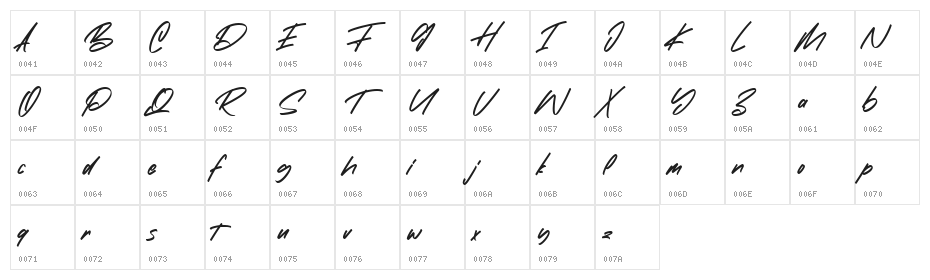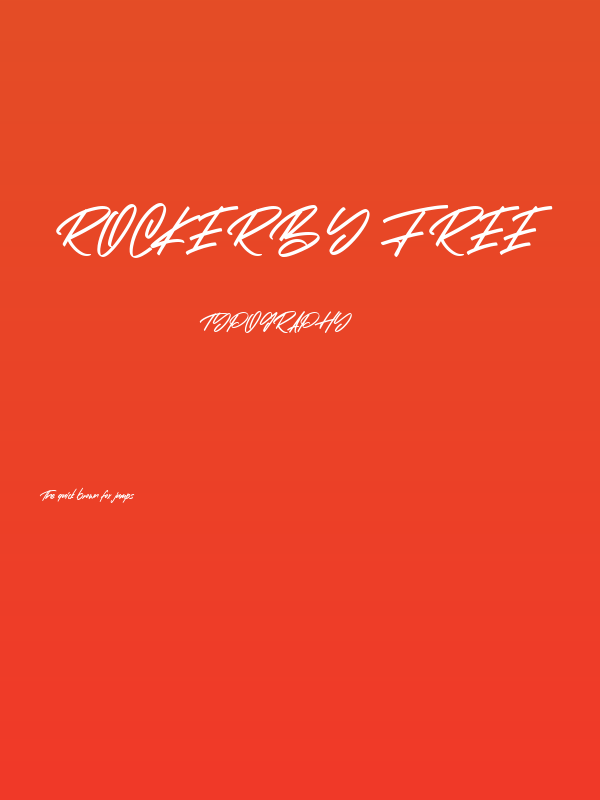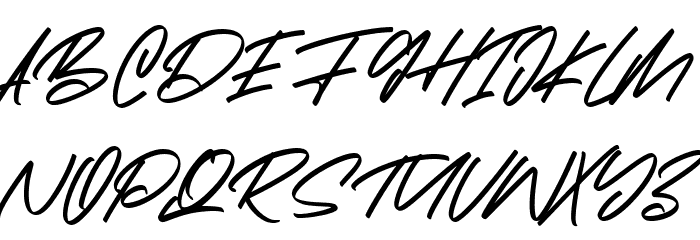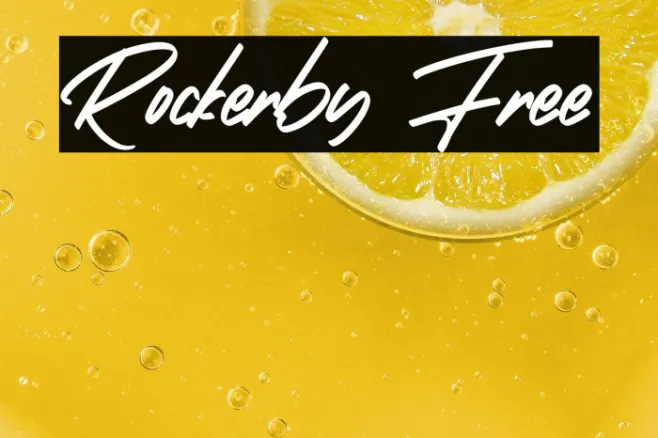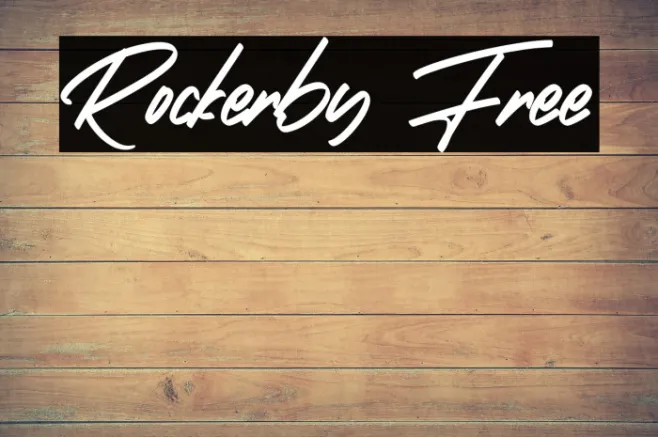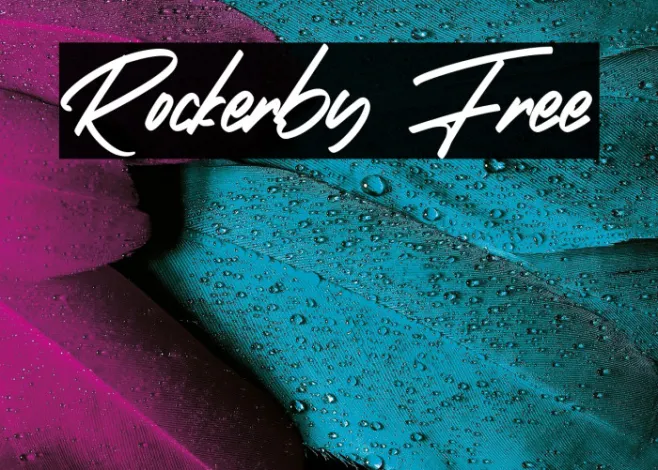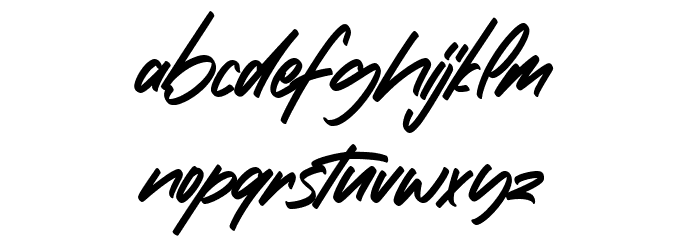
Rockerby Free Font
Rockerby Free Description
This font exudes a dynamic and energetic style, characterized by its bold, flowing script that mimics the fluidity of handwriting. The letters are interconnected, creating a sense of movement and continuity. The uppercase and lowercase letters maintain a consistent style, with elongated strokes and a slight slant that adds to its casual yet sophisticated appearance. The font's design is both expressive and legible, making it suitable for a variety of creative applications. Its unique flair and artistic touch make it stand out, while still being versatile enough for different uses.
| Use Case | Logos, Invitations, Creative projects |
| Proposed Projects | Ideal for branding, logos, invitations, and creative projects that require a personal touch. |